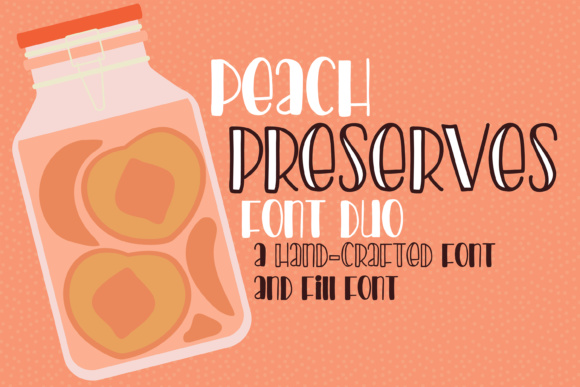
Journey into a world of charm and handwritten bliss with Peach Preserves Font, a meticulously hand-crafted font duo that captivates hearts with its whimsical and delightful style. Immerse yourself in the world of Illustration Ink, where art and inspiration collide, and discover the beauty that awaits within the strokes of this enchanting font.
Peach Preserves Font is a symphony of elegance and playfulness, a dance of characters that twirl and intertwine like notes on a musical staff. Its casual vibe and breezy spirit breathe life into your designs, whether you're crafting logos, branding, social media graphics, or personal projects. Each letter, a brushstroke of artistry, carries the warmth of human touch, adding a personal touch to your creative endeavors.
With Peach Preserves Font, you'll find endless possibilities to express yourself. Layer the two fonts included in the duo to create depth and dimension, or use them separately for a more minimalist approach. The sky's the limit when it comes to expressing your unique style.